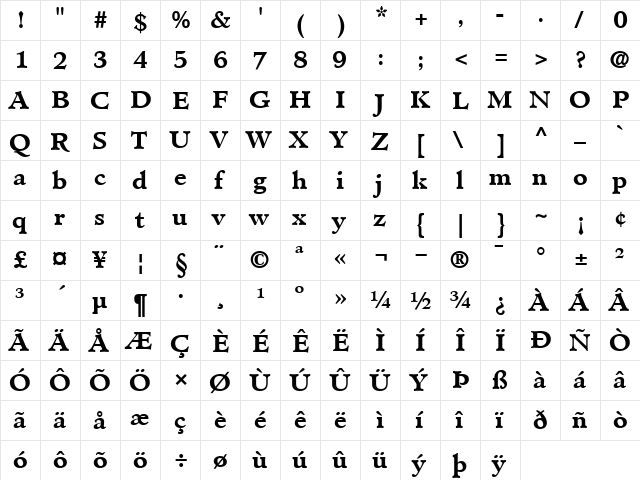
Minister Bold
Design Context for Minister Typeface
Minister is a composed and adaptable typeface that performs quietly and consistently across a wide range of design contexts. Its bold stroke weight gives it real presence on the page.